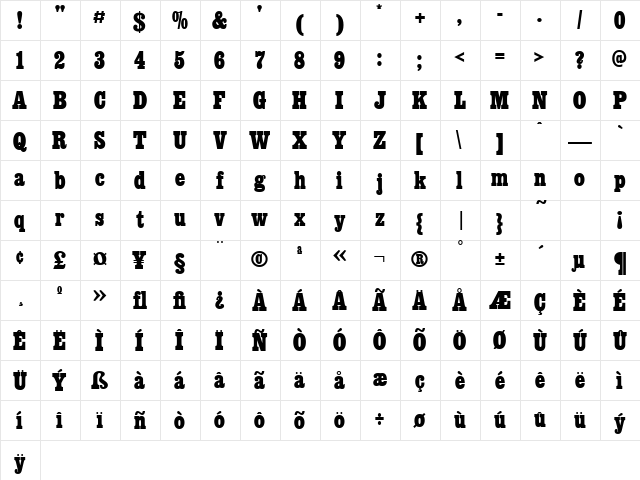
AIEgyptianConBolSma Regular
Design Context for AIEgyptianConBolSma Typeface
AIEgyptianConBolSma combines the readability of serif typography with the visual weight of a slab construction, resulting in a typeface that feels both authoritative and approachable.
Works well in editorial design, news publishing, impactful branding, and poster typography.
Pro Tip: Try AIEgyptianConBolSma set tight in headlines for a classic editorial feel. Its slab serifs create strong horizontal rhythm that anchors a page layout.